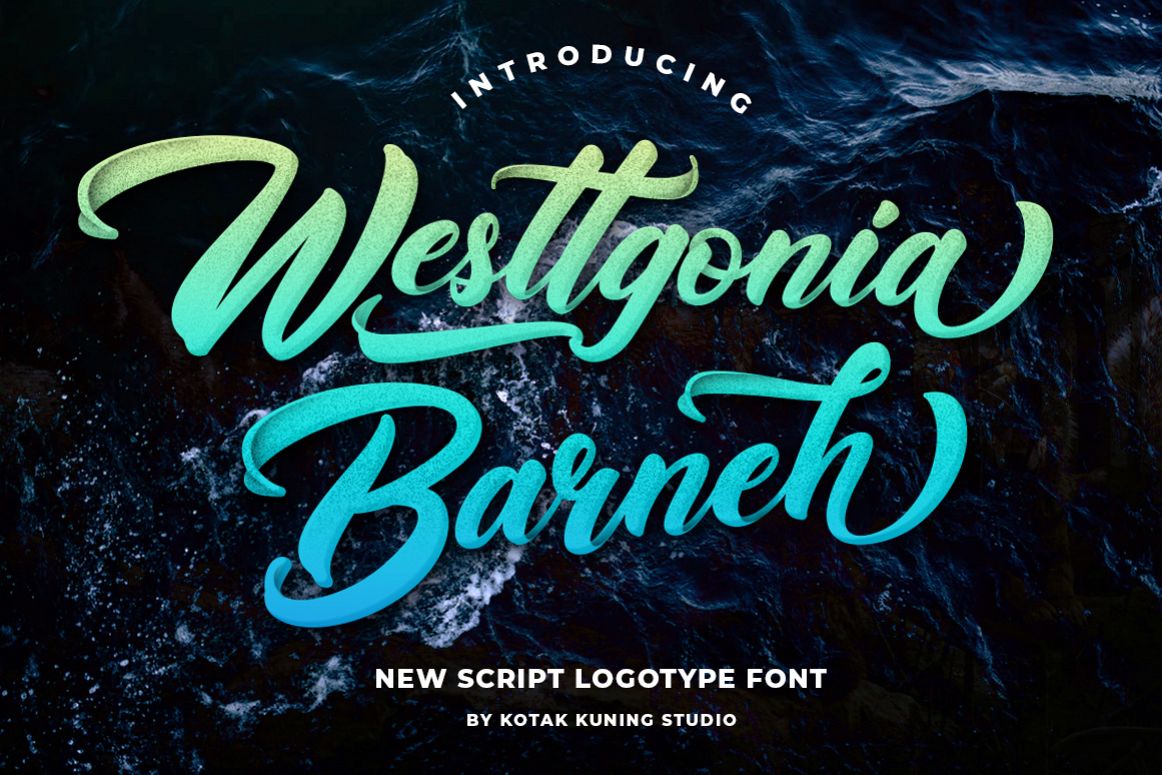
Casual Script - Westtgonia Barneh
Introducing my new font The Westtgonia Barneh!!!
A casual script font and combination with Hand Lettering style which gives more modern touch and makes the font looks being customized.
This font is suitable to use as a logotype, product designs, label, watermark, social media posts, apparel, invitation, signboard, sports club, motor/car, special events or anything that need handwriting taste.
• Westtgonia Barneh includes capital and lowercase letters, Alternates, and Ligatures
• Numbers + punctuation
• Foreign language support